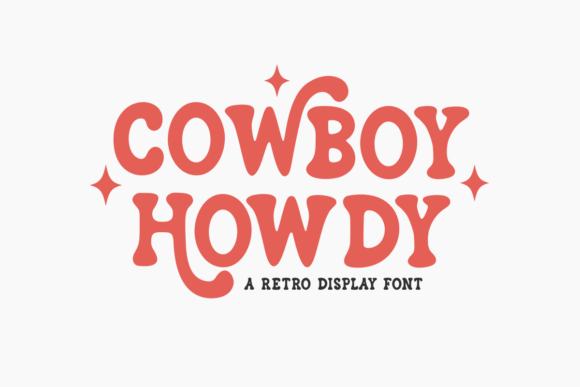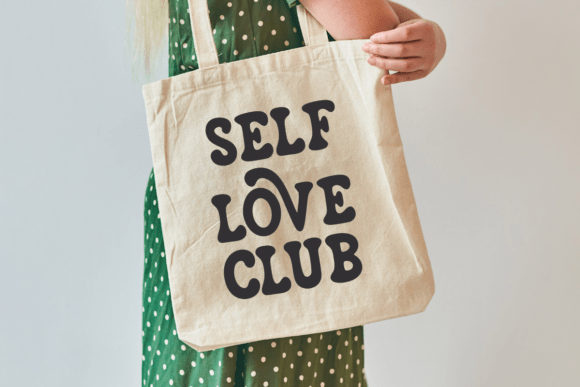
Cowboy Howdy Font
Immerse yourself in the rustic charm of Cowboy Howdy, an exclusive handcrafted retro font meticulously designed to breathe life into your creative projects. Its unique alternate feature is especially captivating, seamlessly fusing style with versatility. Ideal for crafting inspring quotes, fashioning statement-making t-shirts, or designing unforgettable tote bags, Cowboy Howdy leaves an indelible mark. Its unique flair also excels when it comes to branding, conjuring greeting cards, or embellishing invitation cards with a nostalgic appeal. Discover the allure of Cowboy Howdy, a font that masterfully bridges the divide between the past and present, offering timeless style without compromising on functionality.